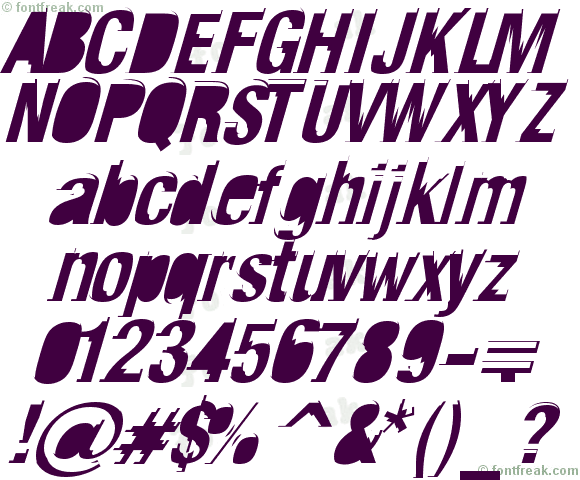
Crash
About Crash
The "Crash" font, designed by Marcio Hirosse in 1999, is a striking display typeface that embodies a dynamic and energetic aesthetic. This font features a unique blend of bold strokes and sharp angles, creating an impression of movement and urgency. The stroke weight is noticeably varied, with thicker sections that draw attention and thinner elements that add a sense of elegance. The visual contrast in the letters enhances their impact, making "Crash" an ideal choice for eye-catching designs. The spacing between characters is carefully balanced, ensuring readability while maintaining a bold presence.
"Crash" is particularly well-suited for a variety of creative applications. Its dramatic style makes it perfect for movie posters, where it can evoke excitement and tension. Additionally, it serves as an excellent choice for promotional materials, such as flyers or advertisements, where grabbing attention is crucial. The font also shines in event branding, especially for music festivals or art shows, where a contemporary edge is desired. Small business owners looking to create memorable logos or signage will find "Crash" to be an effective design asset. Furthermore, content creators can utilize this font to add flair to social media graphics or website headers, enhancing visual storytelling.
What sets the "Crash" font apart is its ability to convey an energetic spirit while remaining versatile enough for various contexts. Whether you're designing a bold campaign or simply seeking to make a statement, the "Crash font free download" is a remarkable choice that will leave a lasting impression.